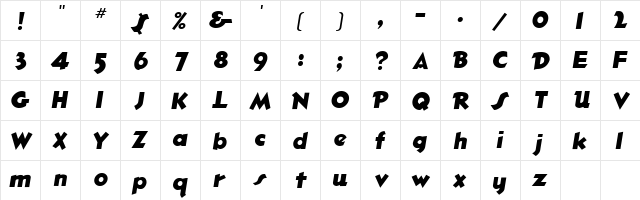
Zeppelin Oblique
Design Context for Zeppelin Typeface
Zeppelin takes a measured approach to typography — its balanced proportions and neutral character make it a reliable workhorse for both digital and print work. Its italic angle brings a sense of urgency and motion to the letterforms.
Pro Tip: Use Zeppelin for emphasis, pull quotes, and subheadings where its slanted energy can add rhythm to the layout.